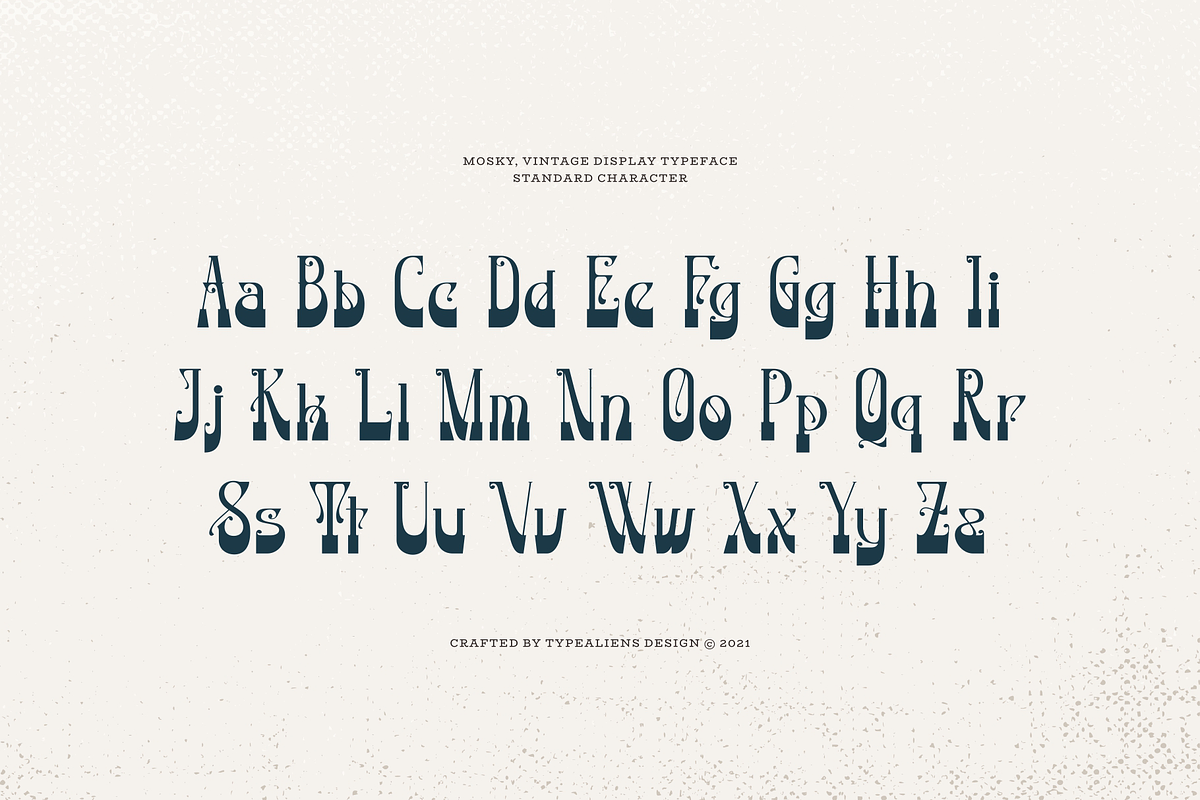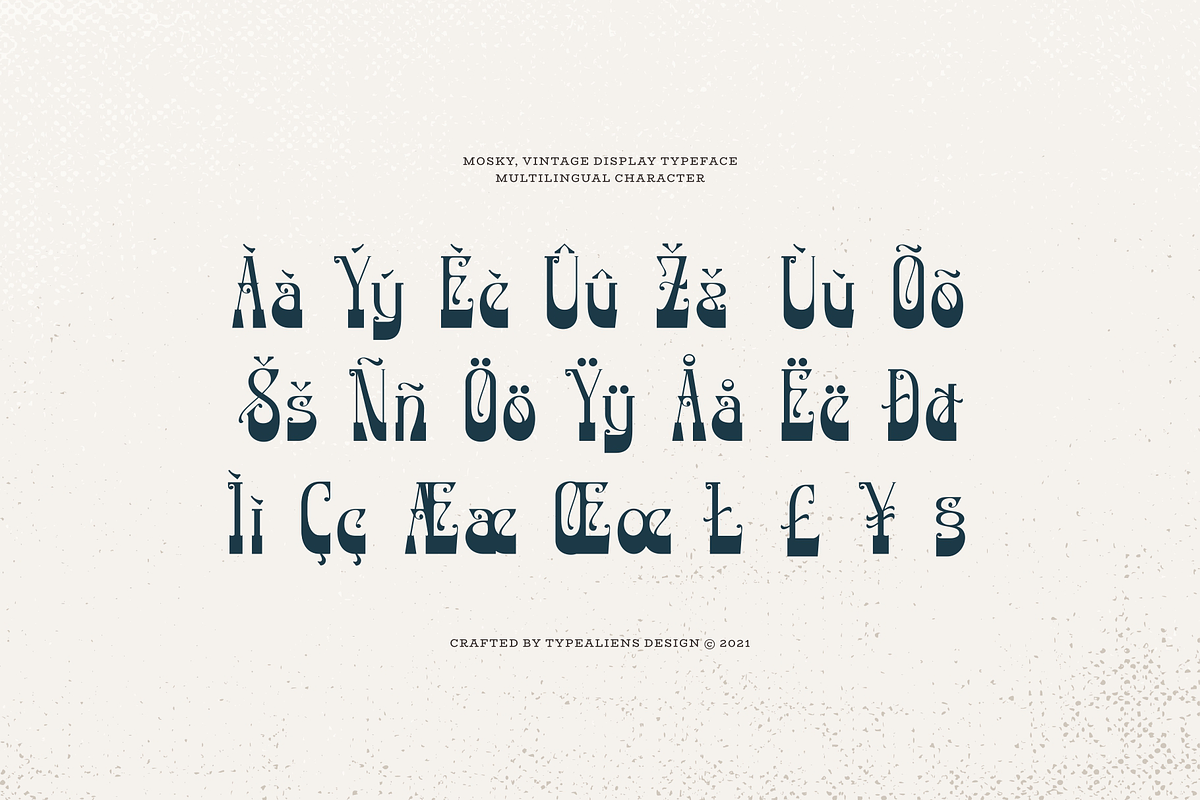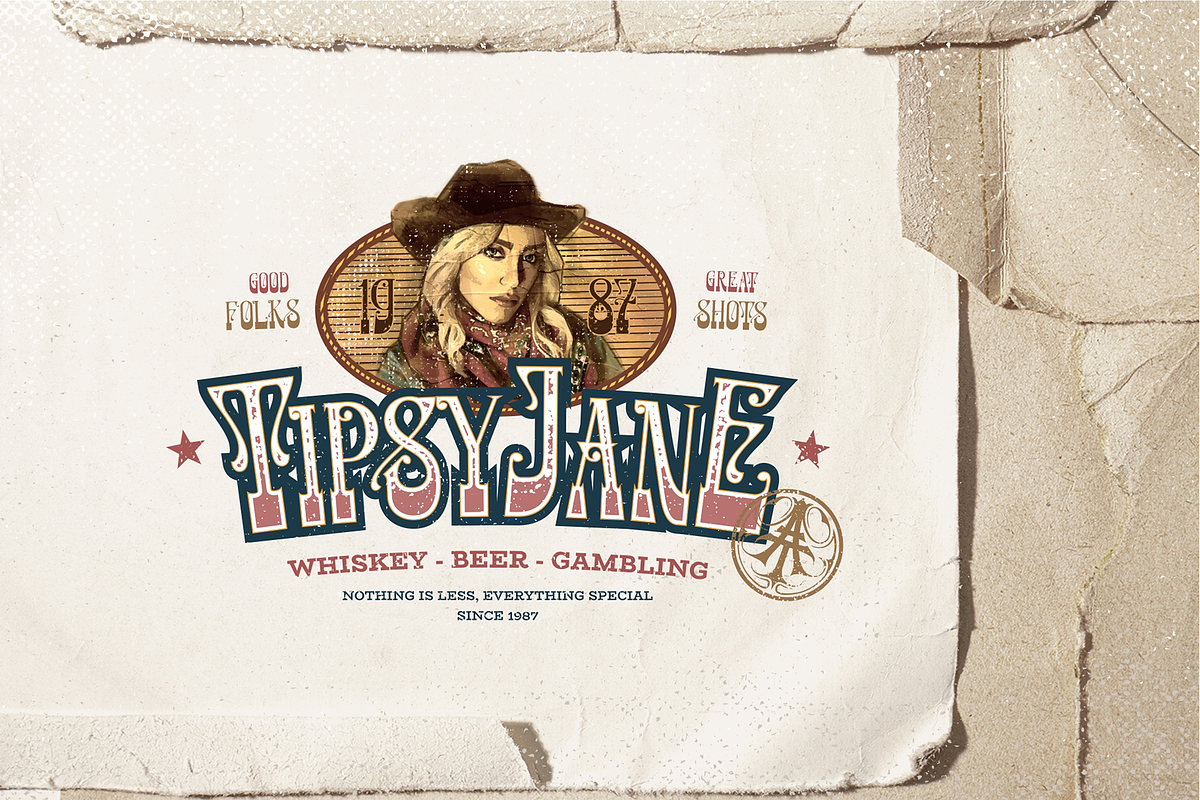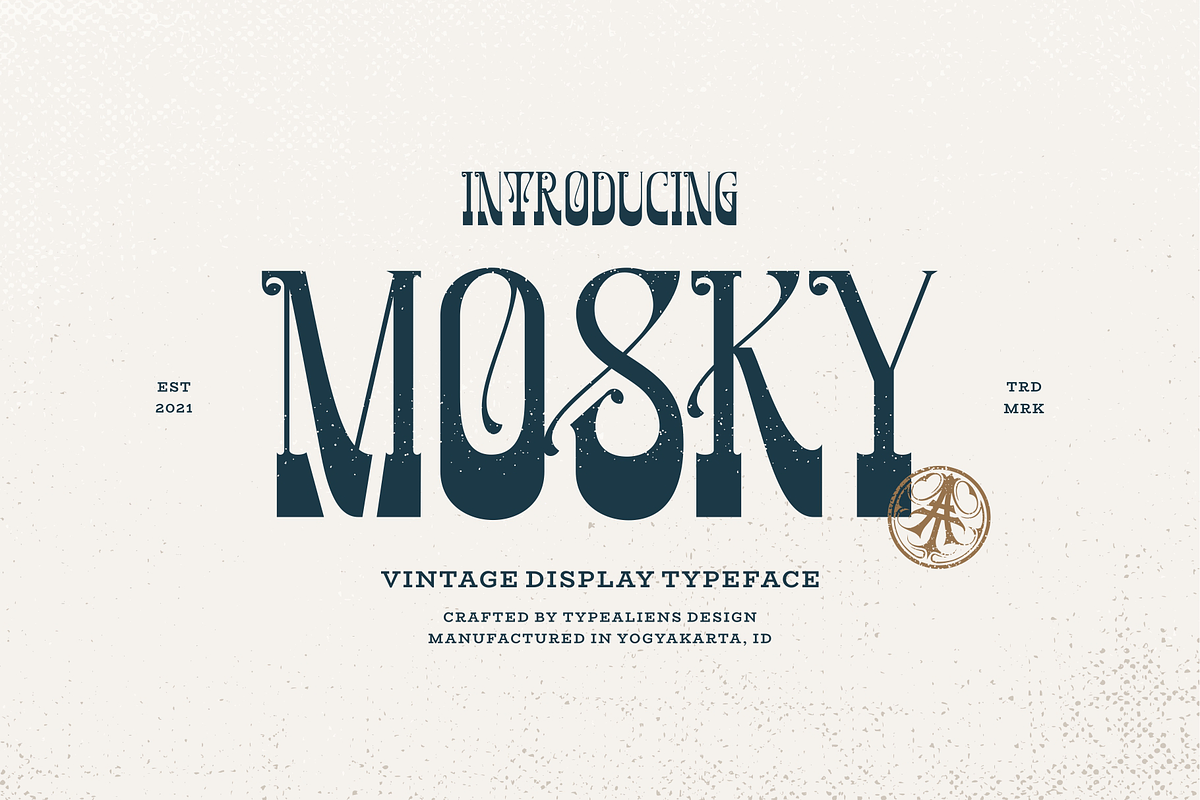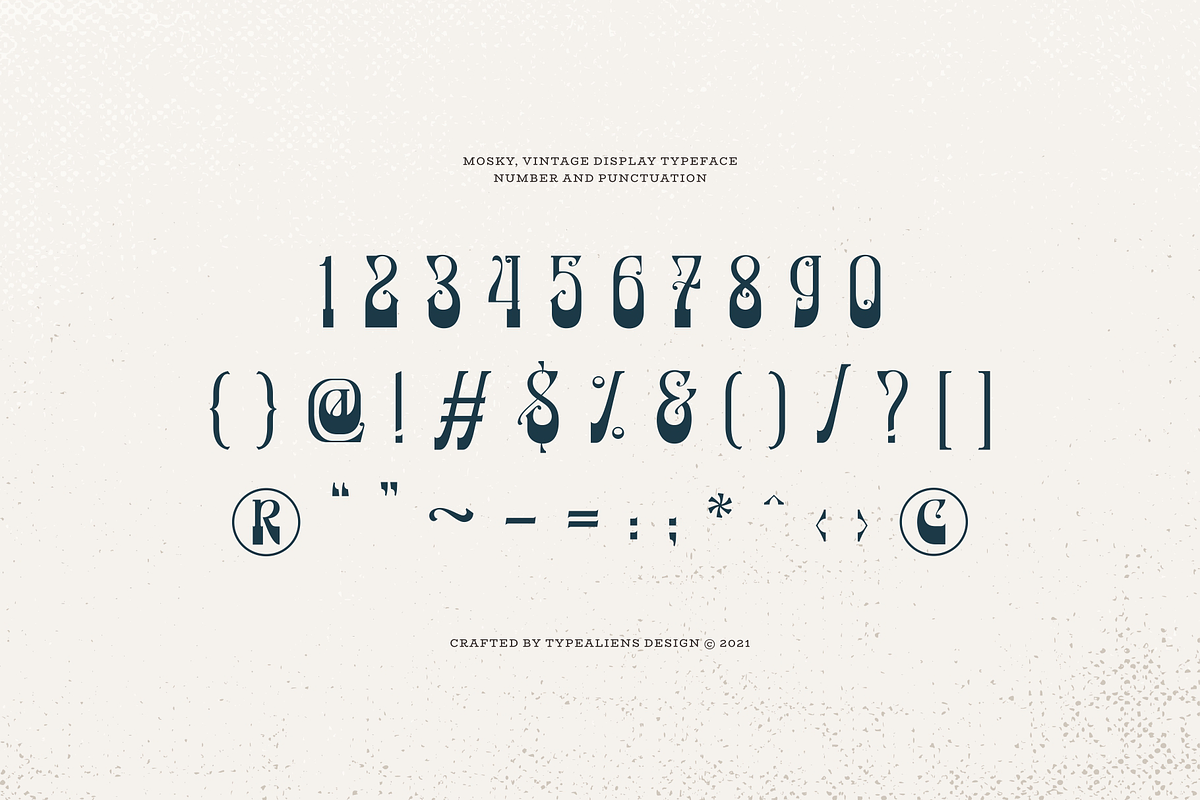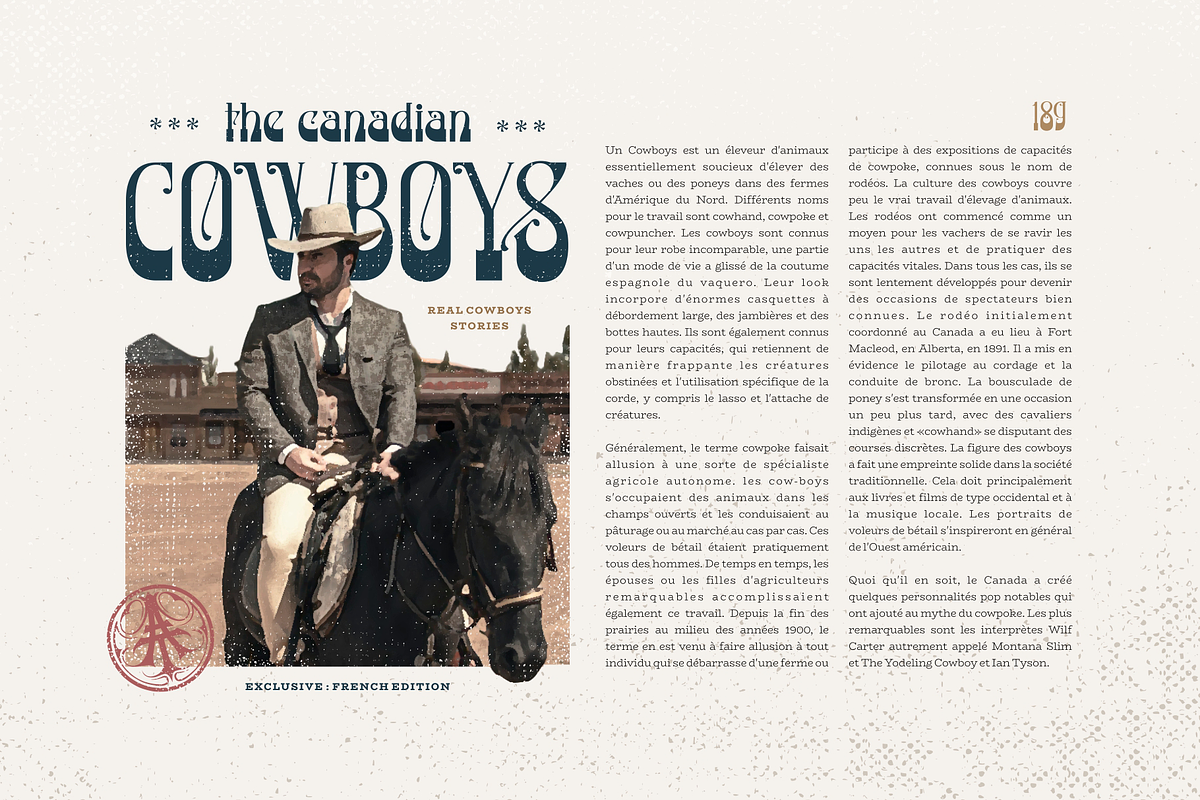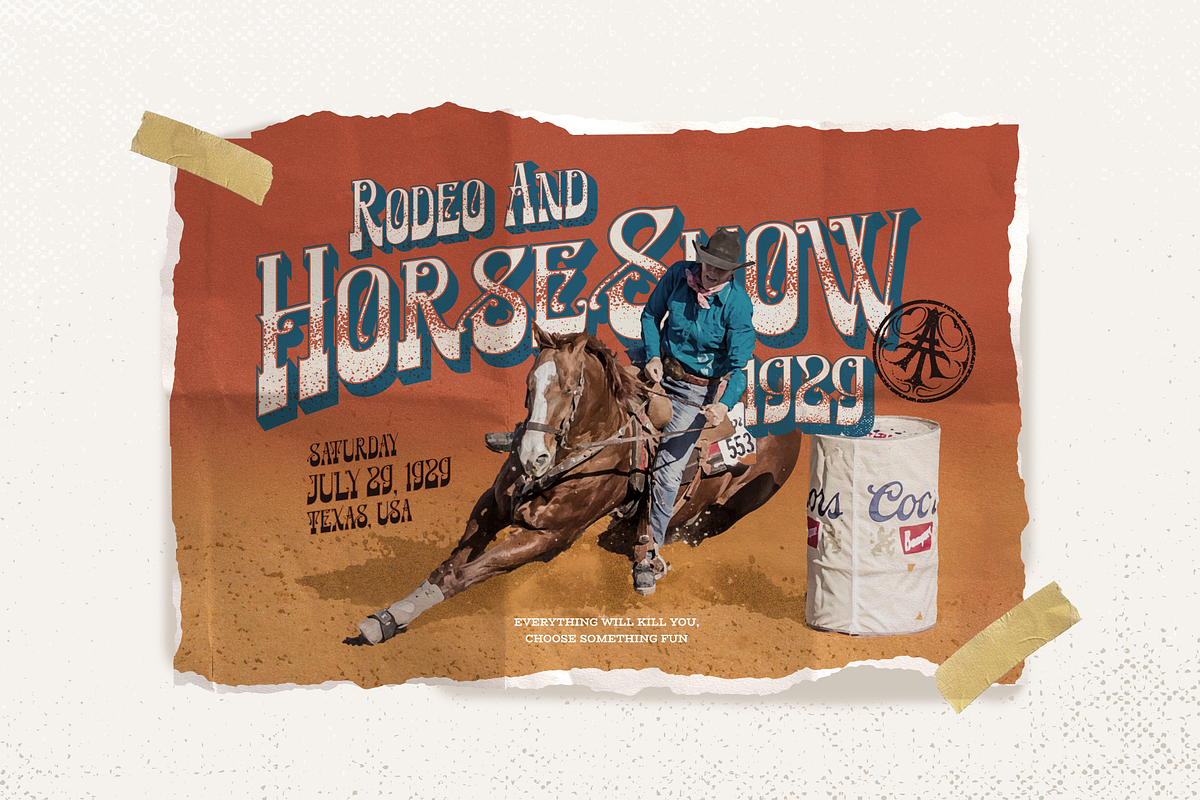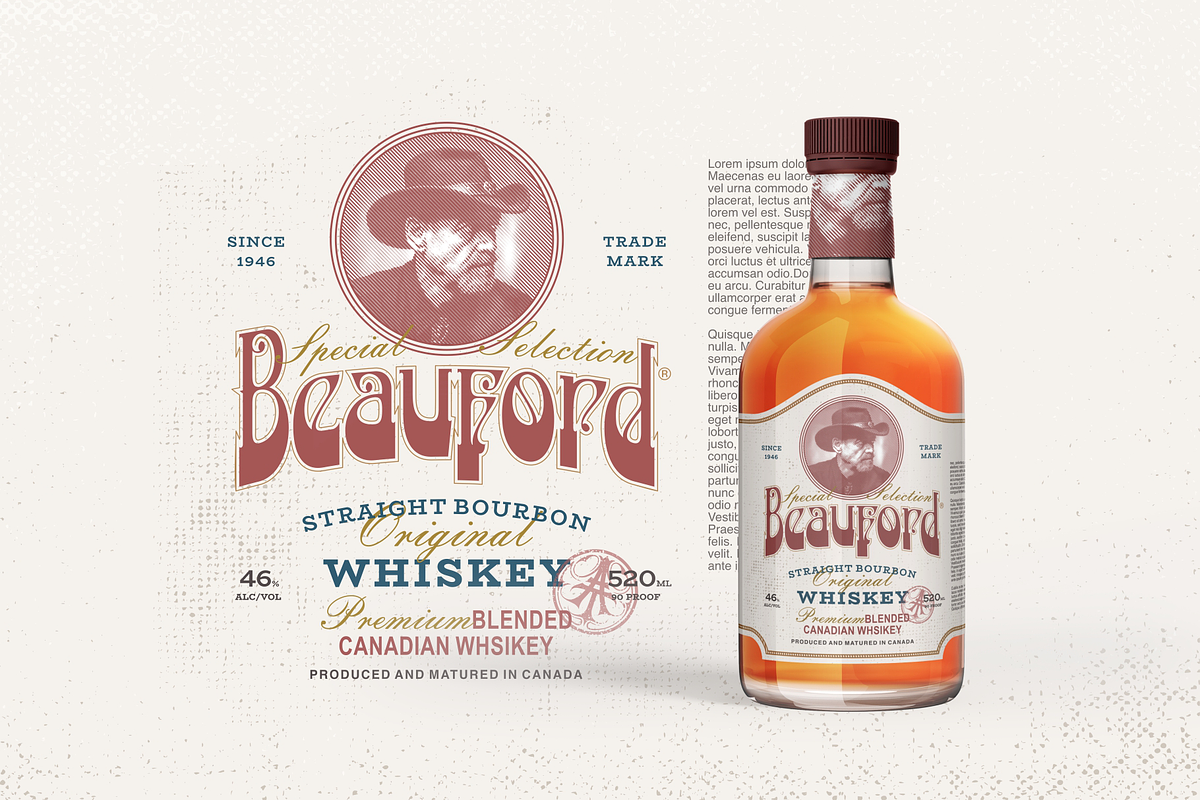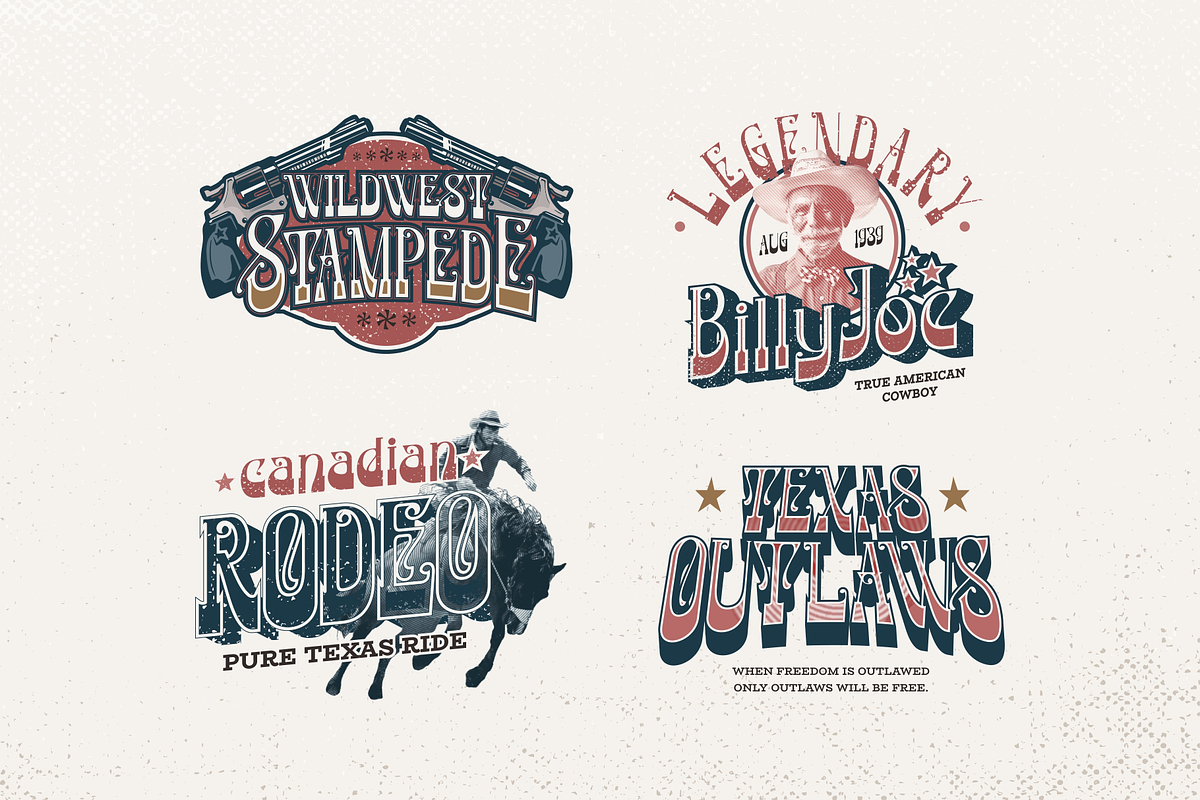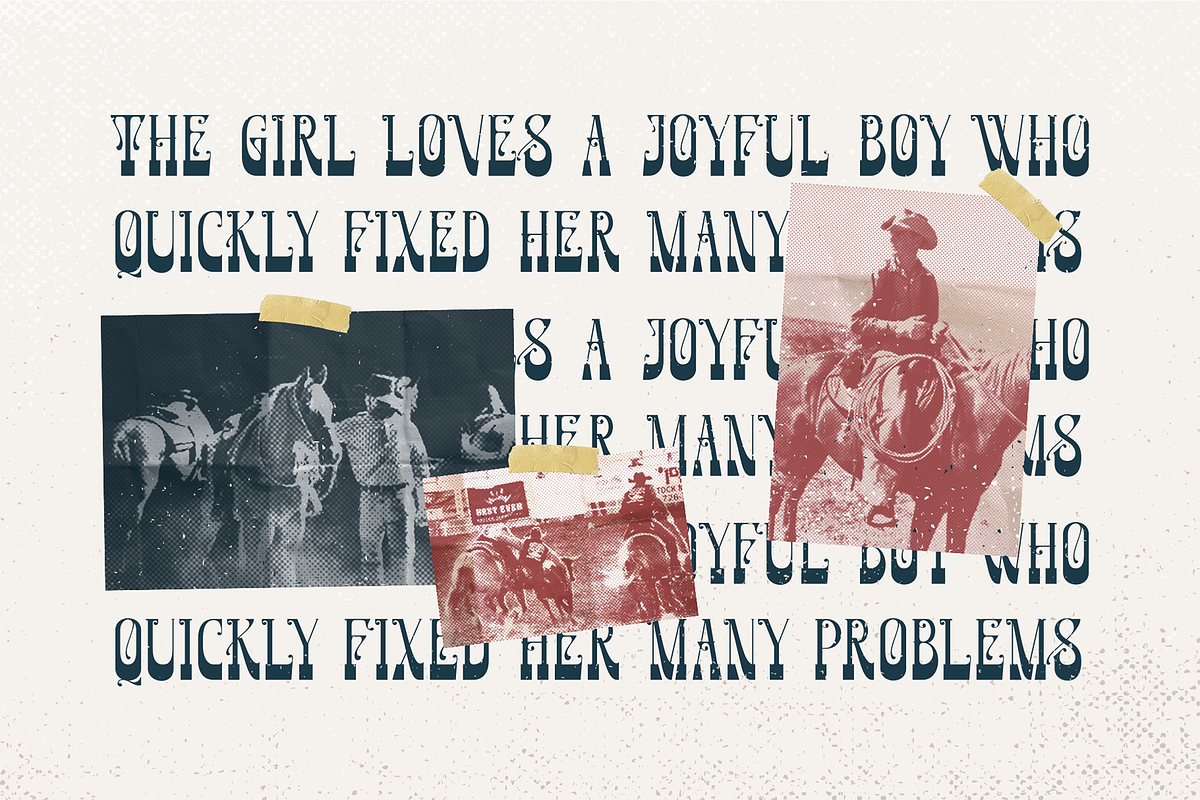
Mosky
MOSKY
Mosky is a unique display font, in a vintage style perfect for creating logotypes, poster designs, logo badges etc. The vintage country style adds a unique and worthy impression to your collection.